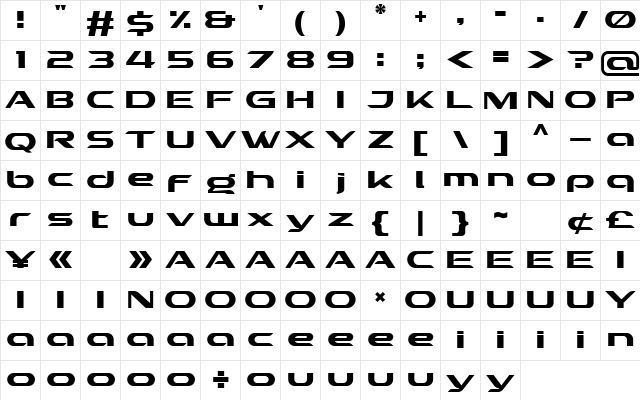
CRENZO Regular
| Foundry | ZEALAB FONTS DIVISION |
| Designer | REZA RASENDA |
Design Context for CRENZO Typeface
CRENZO takes a measured approach to typography — its balanced proportions and neutral character make it a reliable workhorse for both digital and print work.